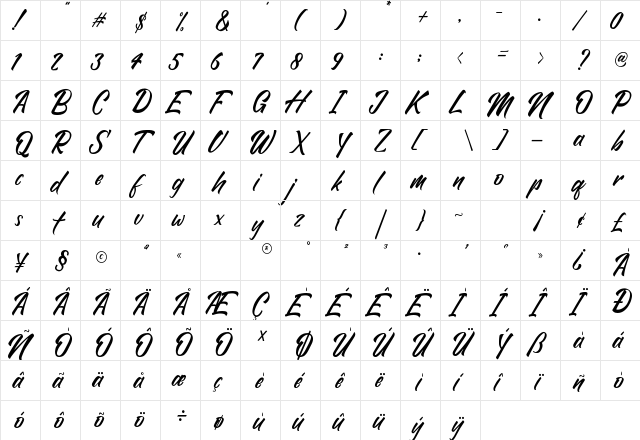
Putra Radhen Regular
Design Context for Putra Radhen Typeface
Putra Radhen is a composed and adaptable typeface that performs quietly and consistently across a wide range of design contexts.